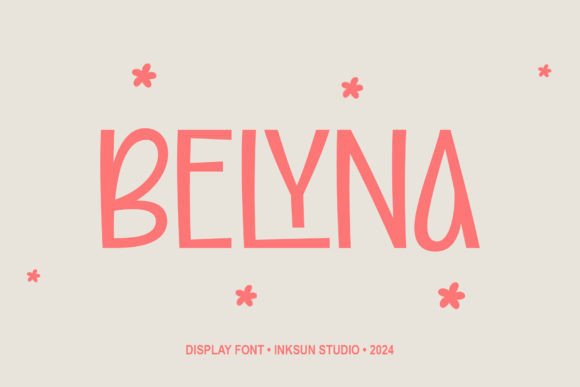
The Sweet Spot: Discovering the Charm of Belyna Font
I’ll never forget the time I was working on a project for a client’s children’s book. I had a clear vision of the story’s tone – playful, friendly, and adventurous. But, as I scrolled through font after font, nothing seemed quite right. That was until I stumbled upon Belyna Font. Its sweet and friendly sans serif style instantly clicked with me, and I knew I had found the perfect fit. In this article, I’ll share with you why Belyna Font has become a staple in my design toolkit and how you can make the most of its unique features.
What I Love About Belyna Font
- ✨ Unique yet approachable style: Belyna Font strikes a perfect balance between being distinctive and easy to read.
- ✅ Versatility: From playful crafts to elegant designs, Belyna Font adapts seamlessly.
- 💡 Inspires creativity: Its natural and friendly vibe sparks imagination, making it a joy to work with.
While Belyna Font is incredibly versatile, there are a couple of things to keep in mind:
- ⚠️ Legibility at small sizes: Like many sans serif fonts, Belyna might require some tweaking for optimal readability at very small sizes.
- 🤔 Overuse of stylistic alternates: With great power comes great responsibility! Using too many stylistic alternates can make the text look cluttered.
The Story Behind Belyna Font
Belyna Font was designed with the intention of creating a friendly and approachable typeface. The designer aimed to craft a font that feels both natural and unique, suitable for a wide range of creative projects. While the exact details of its creation might be shrouded in mystery, it’s clear that Belyna Font has been made with love and a deep understanding of typography’s role in design.
| Font Name | Belyna Font |
| Author | INKSUN™ |
Q: What makes Belyna Font stand out?
A: Belyna Font stands out due to its sweet and friendly sans serif style, making it incredibly versatile for various design projects.
Q: Does Belyna Font support OpenType features?
A: Yes, Belyna Font supports OpenType features, allowing for advanced typographic styling.
Q: Is Belyna Font suitable for body text?
A: Absolutely! Belyna Font’s readability makes it a great choice for body text, though adjustments might be needed for very small sizes.